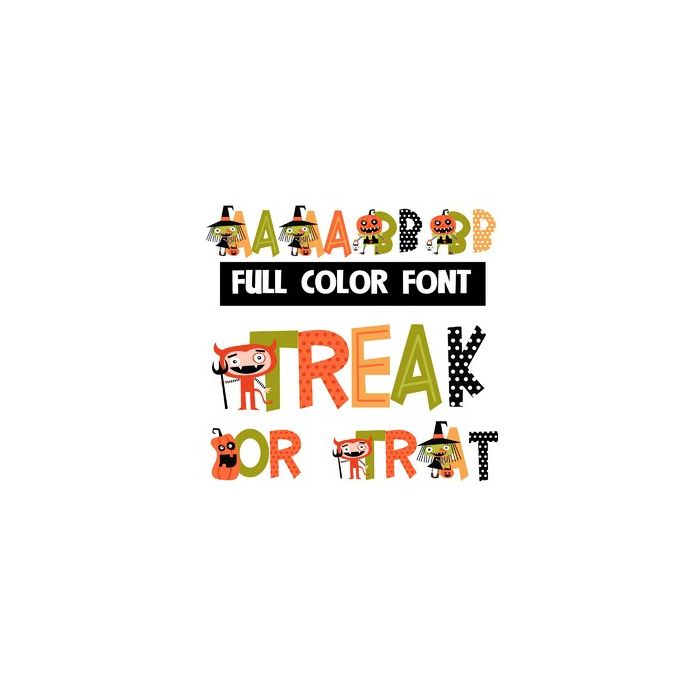
This full-color font features adorable Halloween characters on the uppercase. The lowercase is without characters. There is an alt case in additional colors you can access through Silhouette or your system's glyph map.